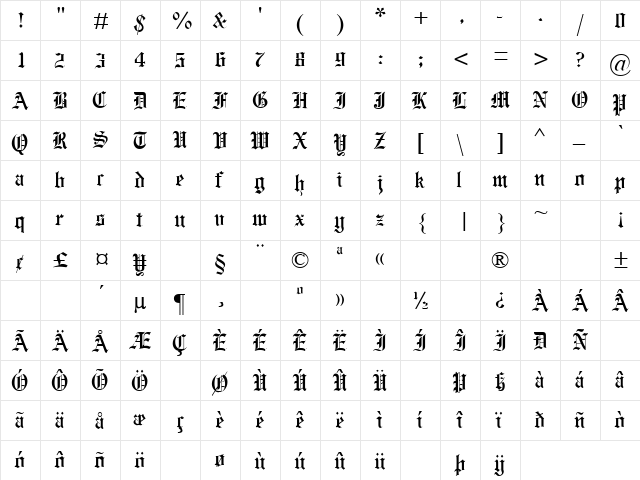
Inferno 11 Regular
Design Context for Inferno 11 Typeface
Inferno 11 is a composed and adaptable typeface that performs quietly and consistently across a wide range of design contexts.